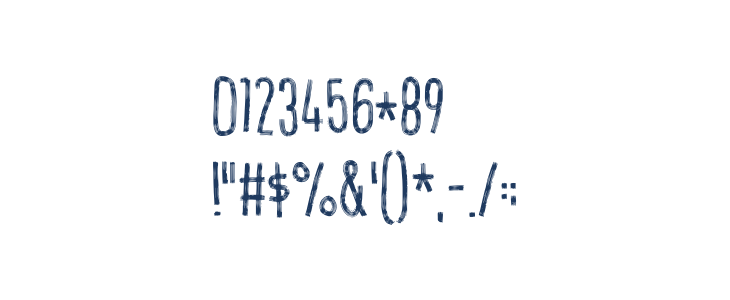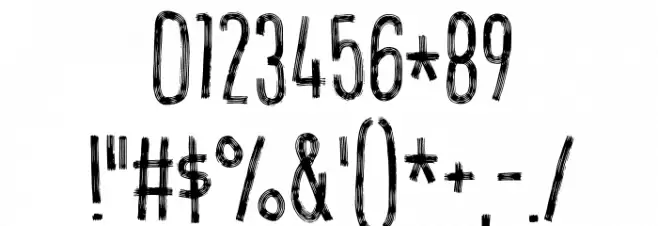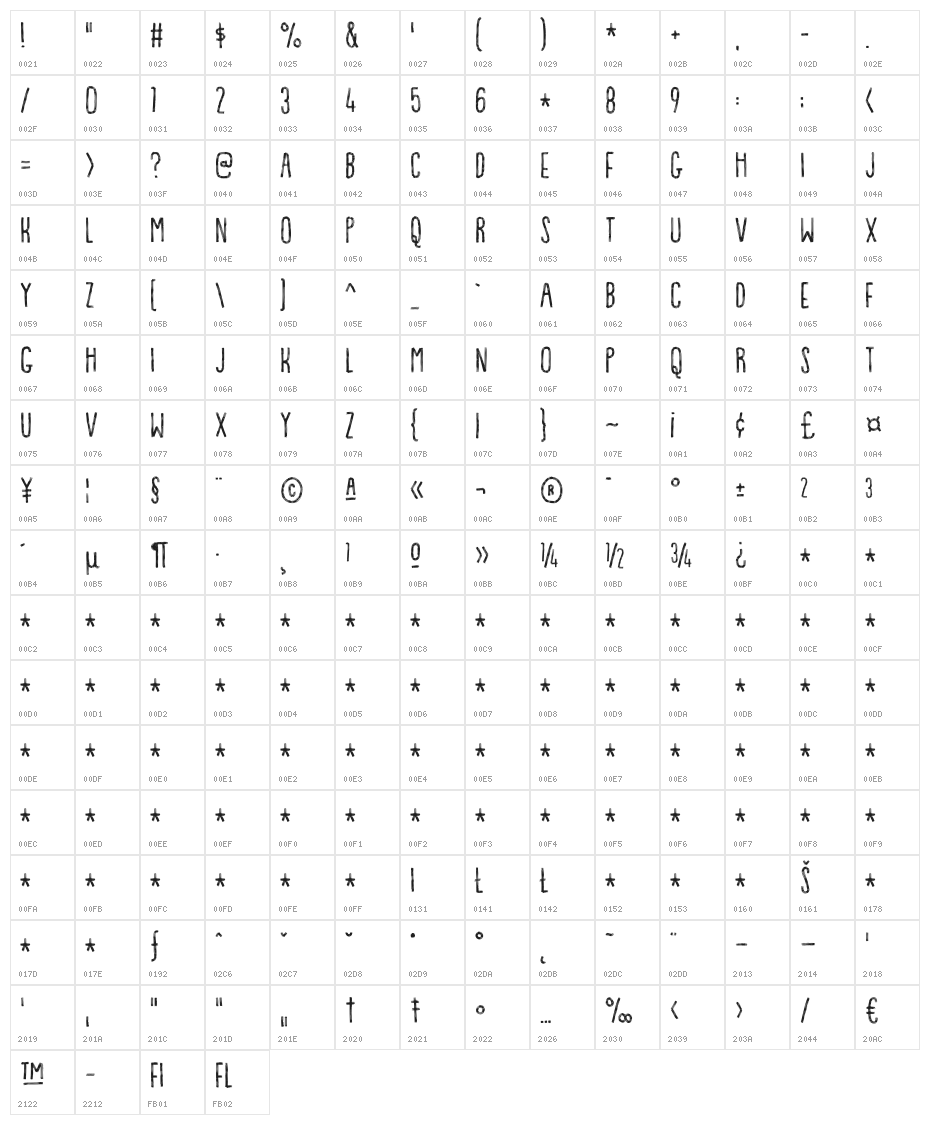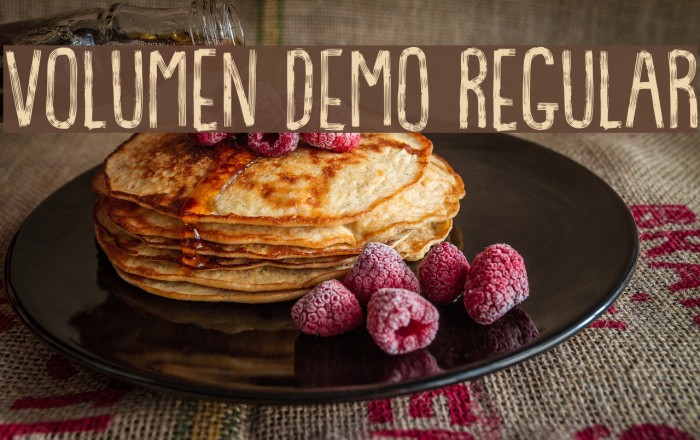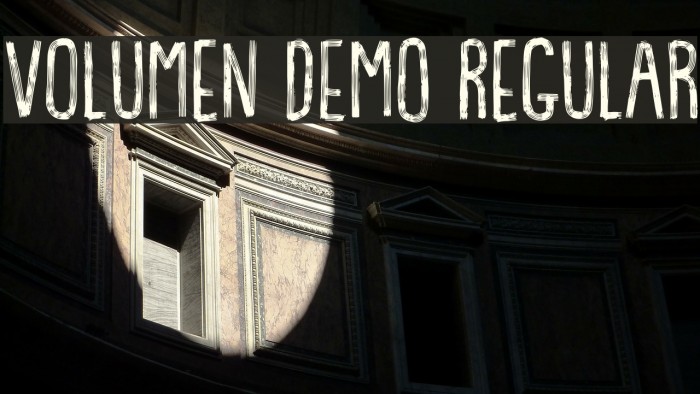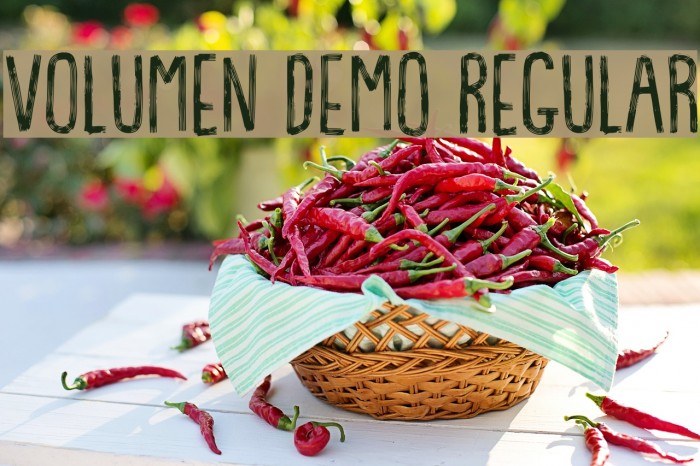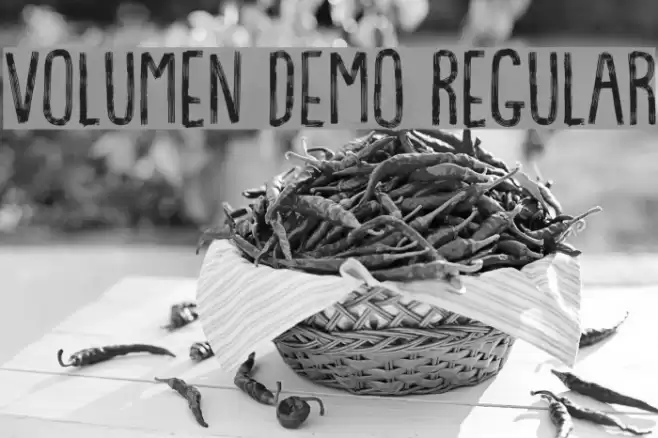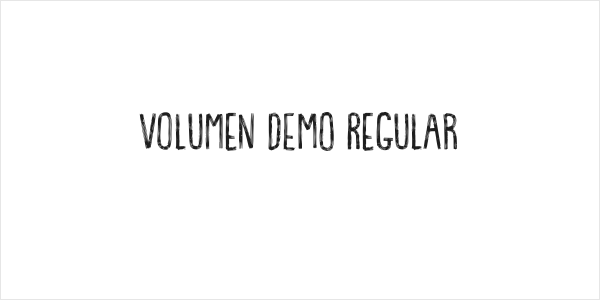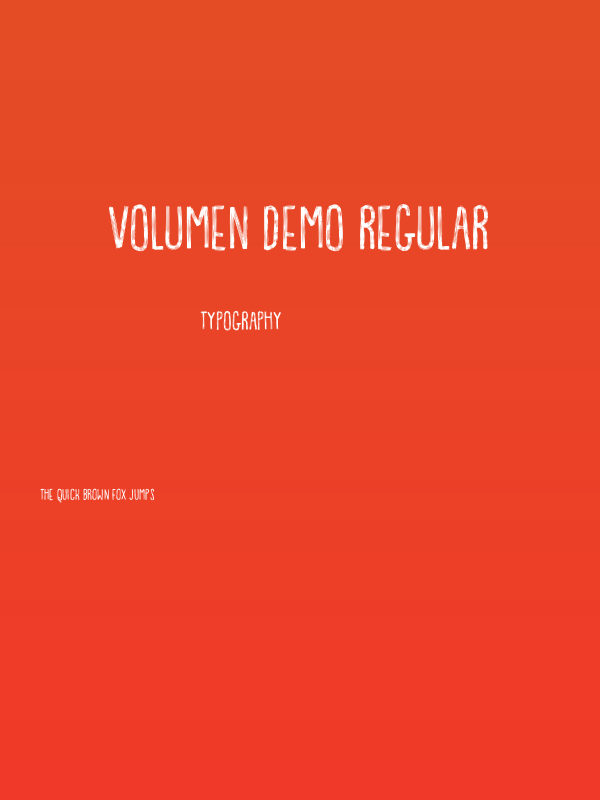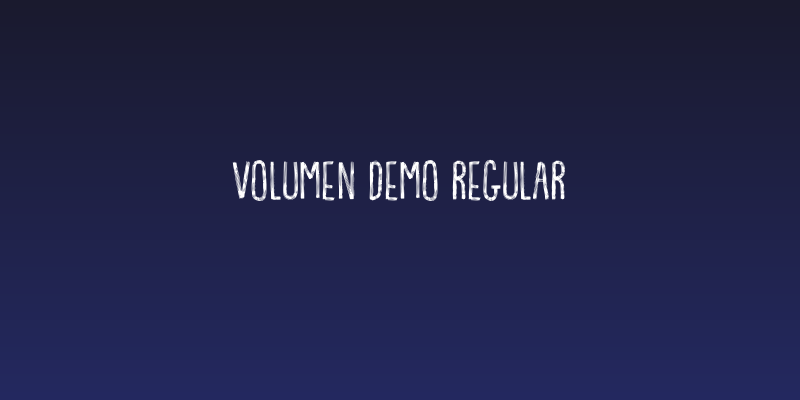
Volumen DEMO Regular Font
Volumen DEMO Regular Description
This font features a unique, hand-drawn appearance with a textured, brush-like effect. The characters are bold and slightly irregular, giving them a dynamic and artistic feel. The uppercase and lowercase letters maintain a consistent style, with elongated strokes and a slightly condensed form. The numbers and special characters follow the same design principles, ensuring a cohesive look across all glyphs. This font's distinctive style makes it stand out, offering a creative and expressive option for various design projects.
| Overall Style | Artistic, Creative, Textured |
| Proposed Projects | Ideal for creative projects such as posters, album covers, artistic branding, and unique invitations. |